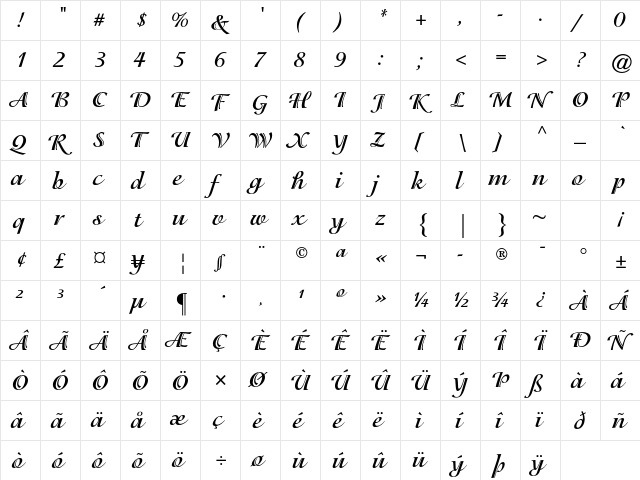
ITC Isadora Std Bold
| Designer | Kris Holmes |
Design Context for ITC Isadora Std Typeface
ITC Isadora Std is a composed and adaptable typeface that performs quietly and consistently across a wide range of design contexts. The heavy weight commands attention and anchors typographic hierarchies.